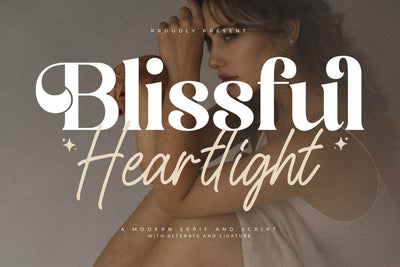
Blissful Heartlight Font Duo
Proudly present Blissful Heartlight Font Duo , created by Storytype,
A serif and script typeface that has own unique style & modern look.